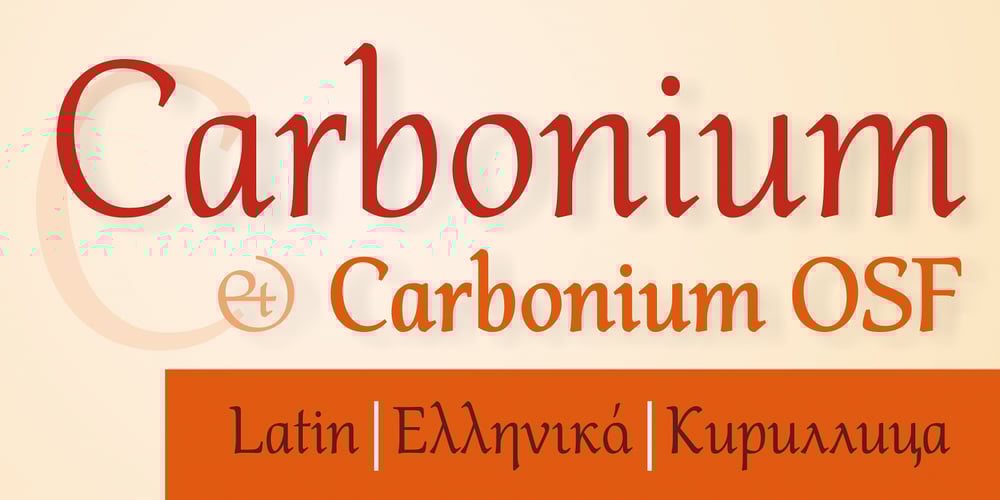
Carbonium Font Family was designed by Paweł Burgiel and published by Paweł Burgiel. Carbonium contains 12 styles and family package options. Carbonium (with lining figures) and Carbonium OSF (with Old Style figures) is a cursive (upright and oblique) typeface. Its character set support Latin, Cyrillic and Greek scripts. Contain fraction- and scientific numerals, standard ligatures, currency symbols and popular recycling symbols used for packaging. Kerning is prepared as single (‘flat’) table for maximum possible compatibility with older software.